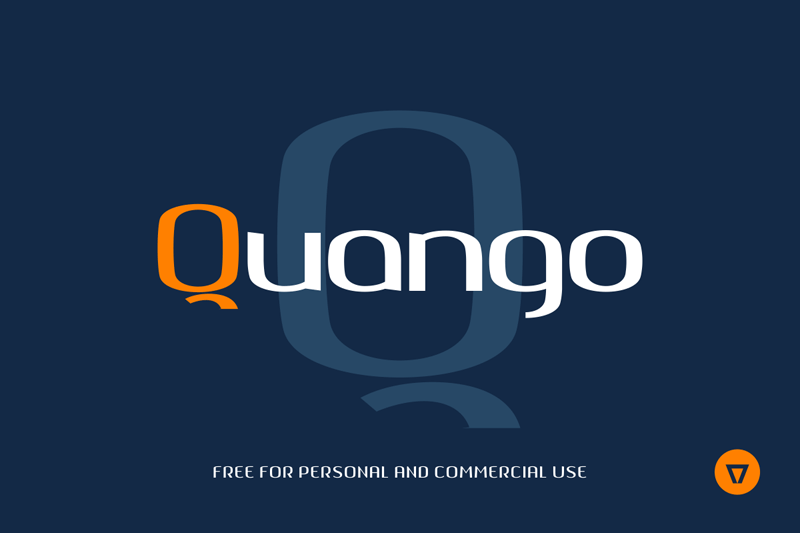
Preview and download Quango Font. Created by NimaVisual in Basic Sans serif styles with 100% Free license.
Quango is a modern sans serif with a singular techno approach, wide glyphs and contrasted, angular strokes |